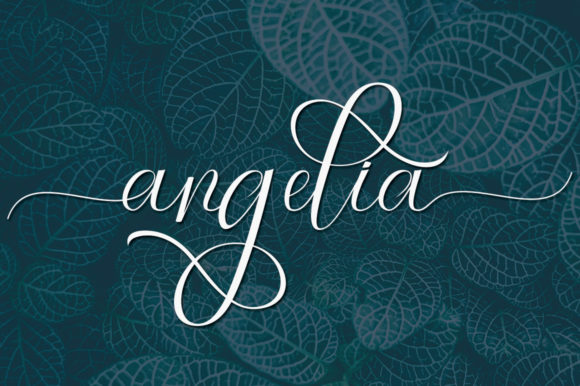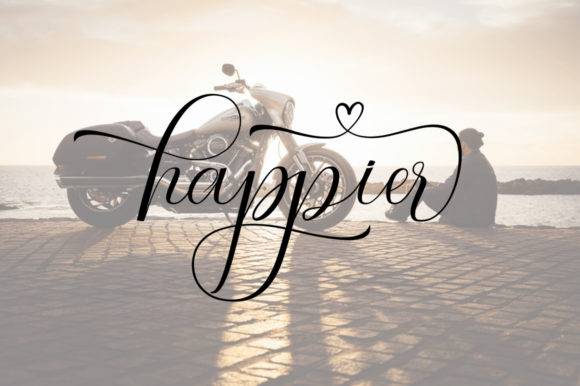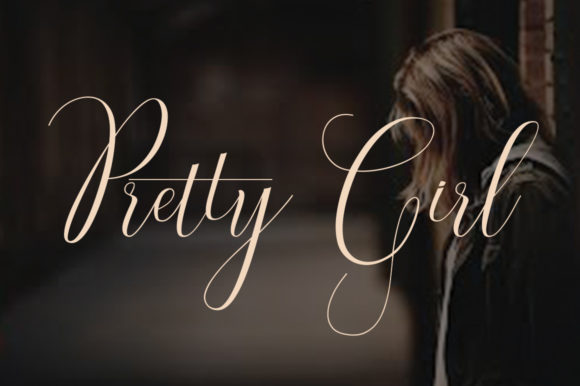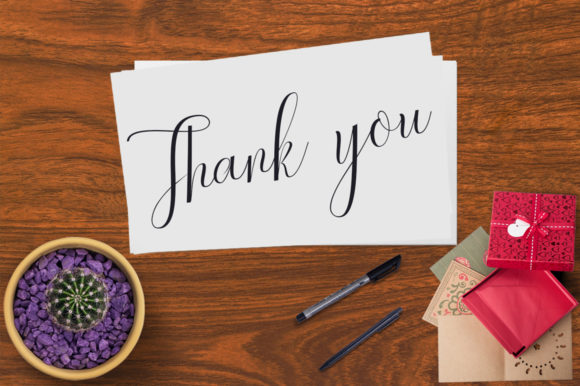
Introducing Dialova Font: Elevate Your Designs with Timeless Calligraphy
In the world of typography, few fonts capture the essence of classic calligraphy as beautifully as Dialova. This stunning font is a masterful blend of traditional elegance and modern flair, making it the perfect addition to any design project. With its gorgeous swashes and ligatures, Dialova pays homage to the art of calligraphy while offering a fresh, contemporary twist.
The Beauty of Dialova: A Closer Look
Dialova’s design is rooted in the rich tradition of calligraphy, with intricate swashes and ligatures that evoke the feeling of hand-written elegance. Each letter is carefully crafted to showcase the beauty of classic calligraphy, with flowing lines and delicate flourishes. The result is a font that exudes sophistication and refinement, making it ideal for a wide range of design applications.
Why Use Dialova in Your Designs?
So, why should you choose Dialova for your next design project? Here are just a few compelling reasons:
- Elegance and Sophistication: Dialova’s classic calligraphy style adds a touch of elegance and sophistication to any design, making it perfect for high-end branding, packaging, and marketing materials.
- Versatility: With its wide range of swashes and ligatures, Dialova offers endless possibilities for creative expression. Whether you’re designing a logo, business card, or website, this font is sure to impress.
- Standout Designs: In a world of generic fonts, Dialova helps you stand out from the crowd. Its unique and beautiful design ensures that your work will be noticed and remembered.
Dialova is a dream come true for designers and crafters looking to add a touch of classic elegance to their work. Whether you’re a professional designer or a hobbyist, this font offers a wealth of creative possibilities. Use it to:
- Create stunning logos and branding materials that showcase your client’s unique personality and style.
- Design beautiful stationery and packaging that sets your business apart from the competition.
- Develop eye-catching marketing materials that grab attention and drive results.
Tips for Using Dialova Effectively
To get the most out of Dialova, here are a few tips to keep in mind:
- Experiment with swashes and ligatures to add unique touches to your designs.
- Pair Dialova with complementary fonts to create visually appealing contrast.
- Use Dialova consistently across your design materials to build a strong brand identity.
In conclusion, Dialova is a truly exceptional font that pays homage to the art of classic calligraphy while offering a fresh, modern twist. With its gorgeous swashes and ligatures, this font is sure to elevate any design project into a true standout. Whether you’re a designer, crafter, or simply someone who appreciates beautiful typography, Dialova is a must-have addition to your font collection.